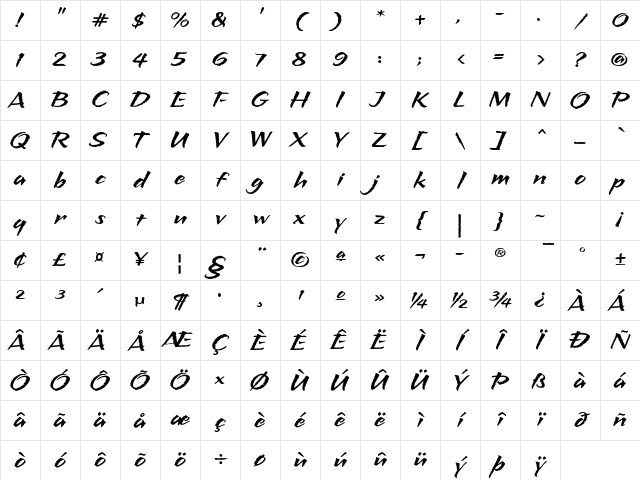
Puamana ITC Regular Free Font
Puamana ITC Regular
Designer: Teri M. Kahan
Design Context for Puamana ITC
Puamana ITC is a composed and adaptable typeface that performs quietly and consistently across a wide range of design contexts.